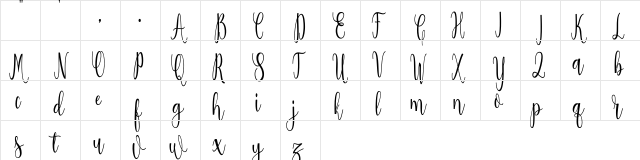
Salwa reguler Regular
| Foundry | Rtcreative |
Design Context for Salwa reguler Typeface
Salwa reguler is a composed and adaptable typeface that performs quietly and consistently across a wide range of design contexts.